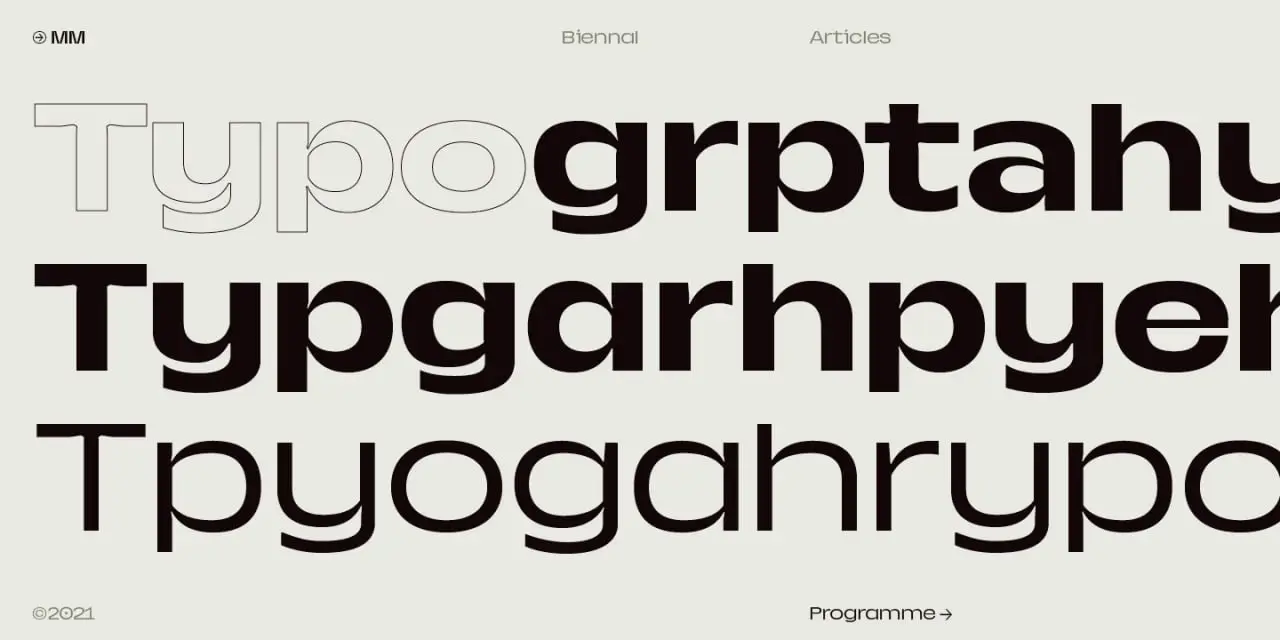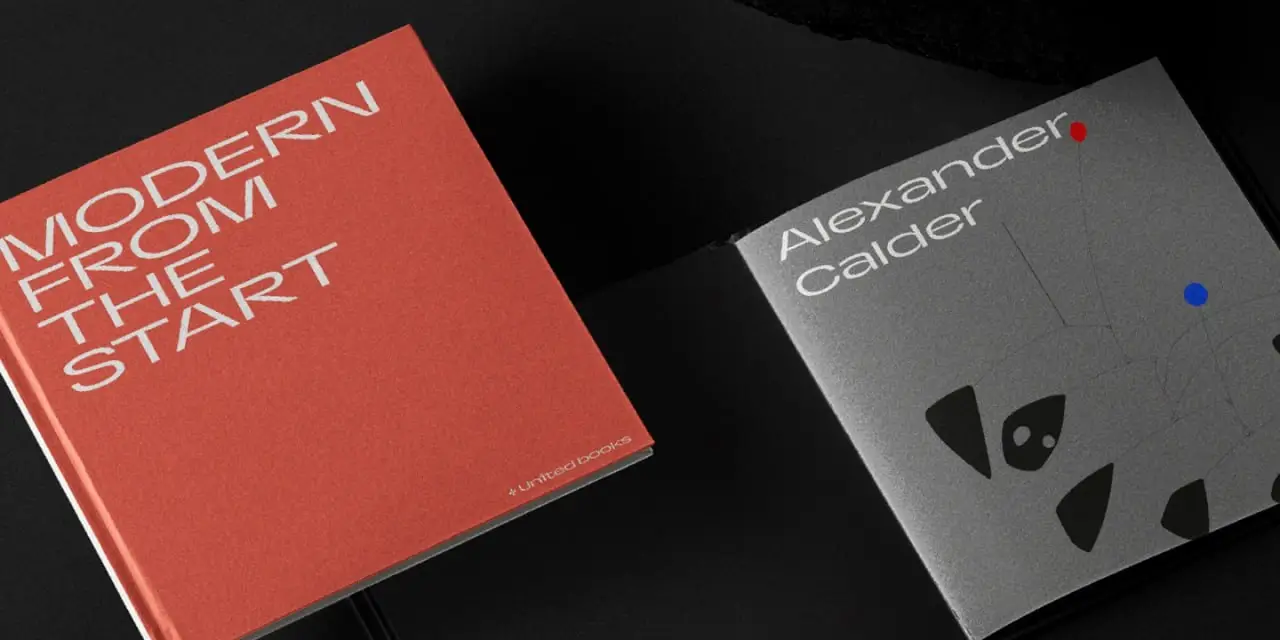
Arp Font By Felipe Sanzana
The Arp Font by Felipe Sanzana is a contemporary typeface designed with versatility in mind. This font features a clean and modern aesthetic, making it suitable for a variety of applications, including branding, logos, web design, and print materials.
• Weights: Light, Regular, Medium, Bold
• Ideal for creating eye-catching logos and branding materials.
• Perfect for both digital and print projects.
• Utilize in user interfaces for a modern touch.